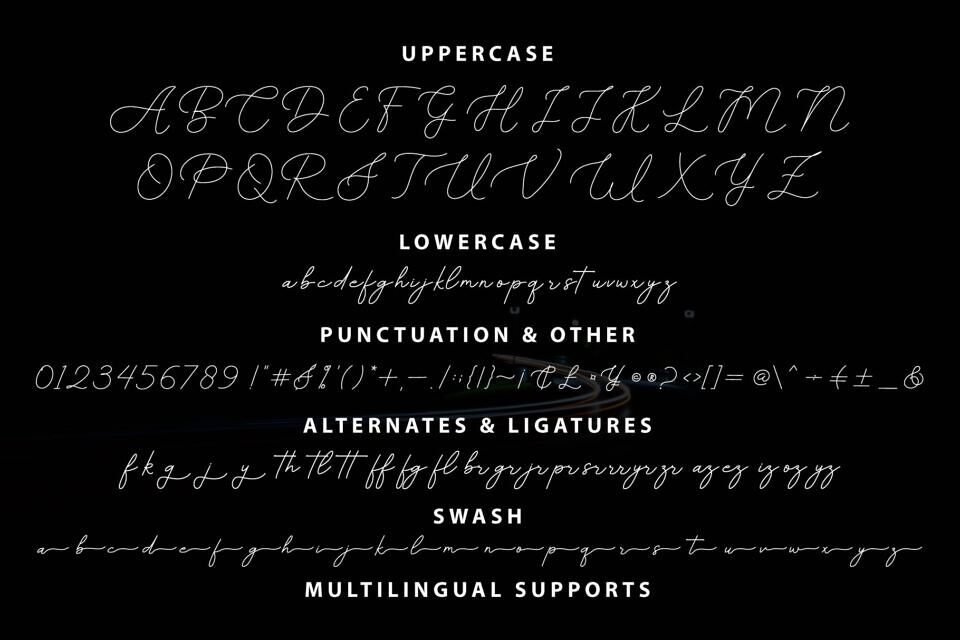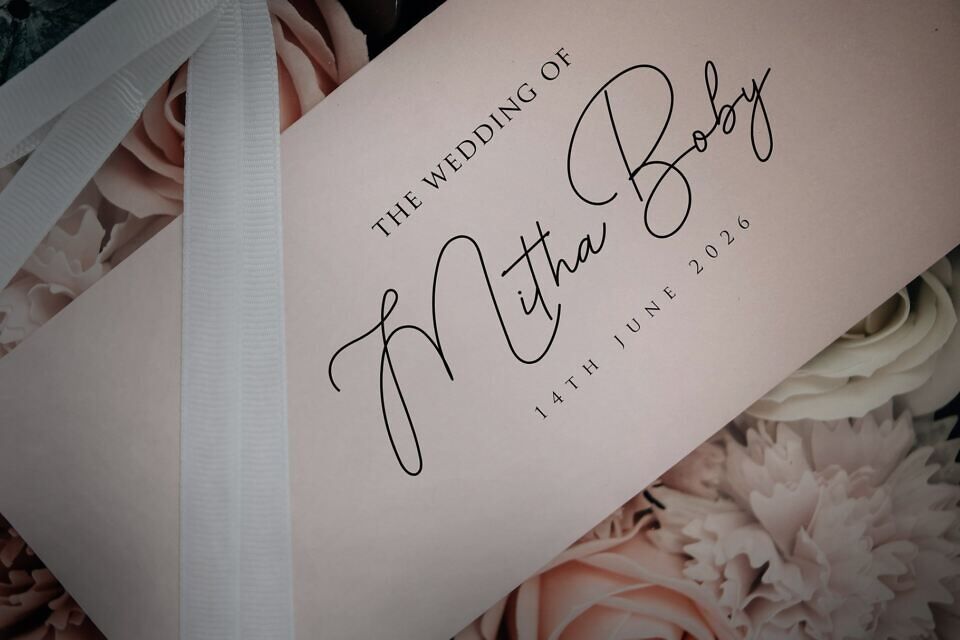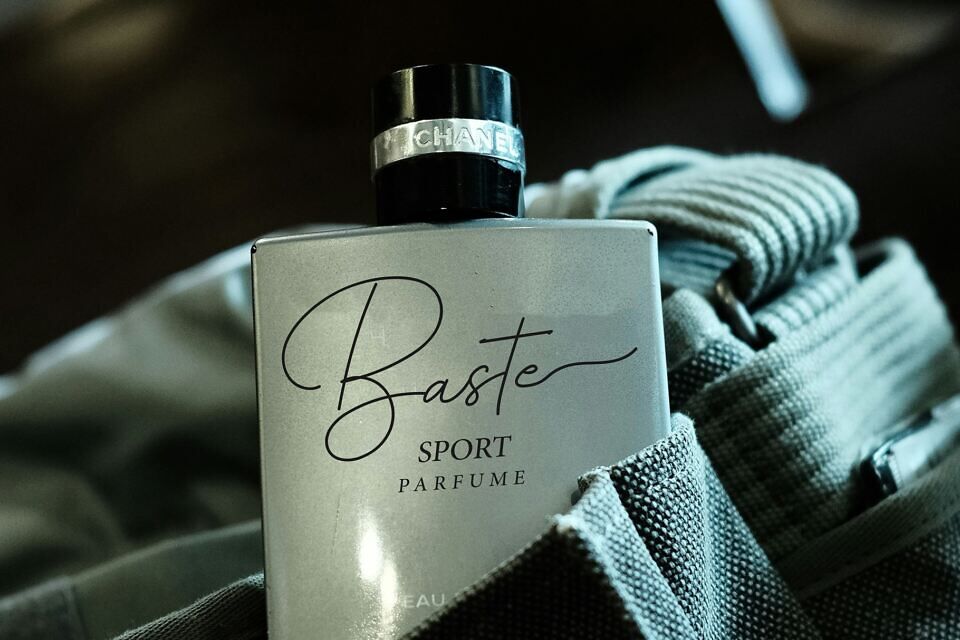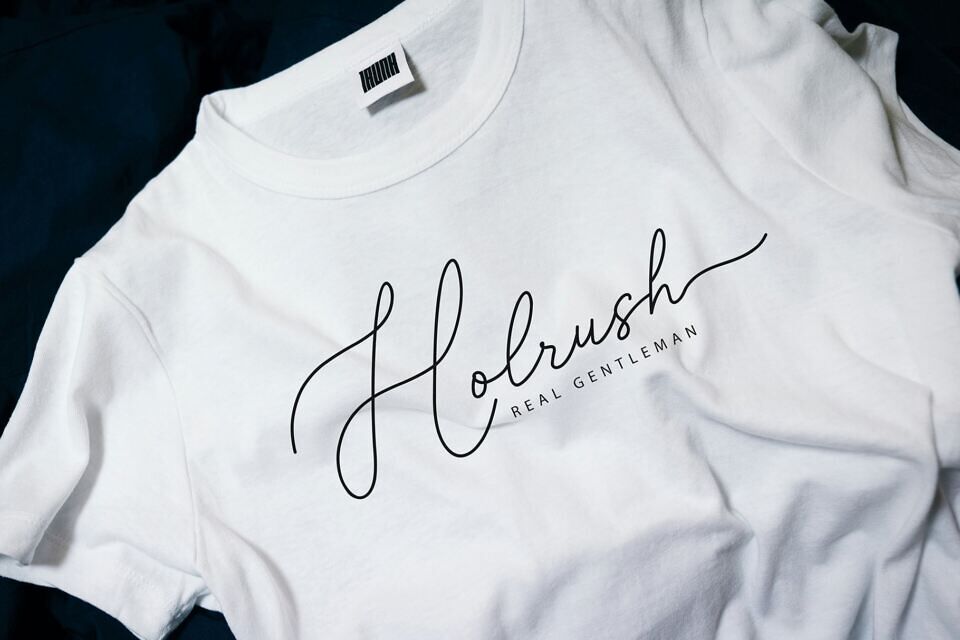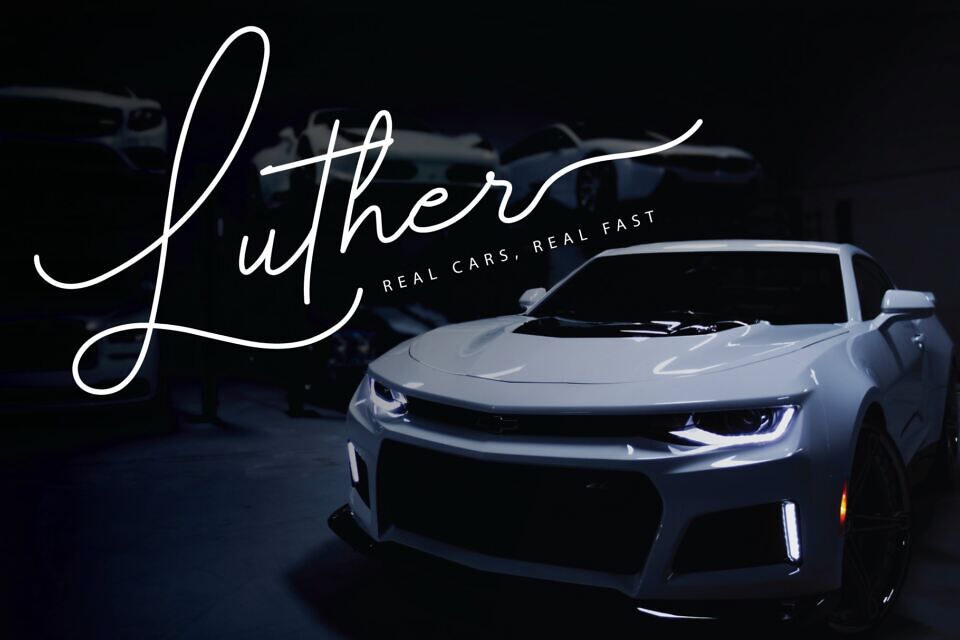
Better Days Font
Better Days – A Modern Signature Font is the perfect blend of elegance and modernity, designed to elevate your brand and creative projects with a distinctive, personal touch.
Perfect for luxury branding, logo, wedding invitations, product packaging, poster or high-end marketing materials.